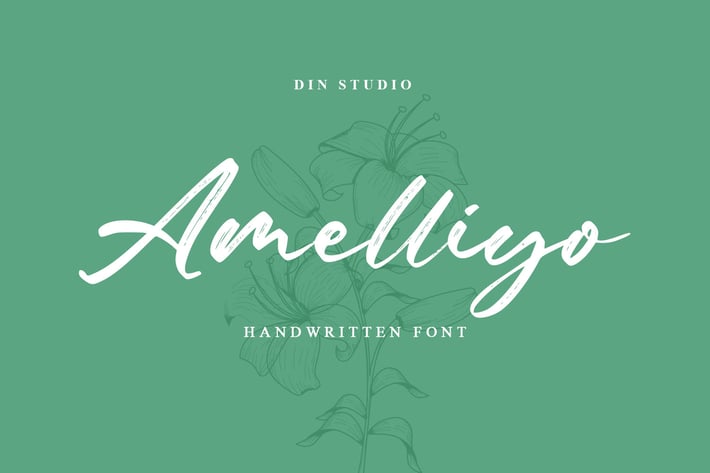
Amelliyo-Handwritten Font
Amelliyo is a classy handwritten font. Made for any professional project branding. It is the best for logos, branding and of quotes. Every letter has a unique and beautiful touch.
- Beautiful Ligatures
- Numerals and Punctuation